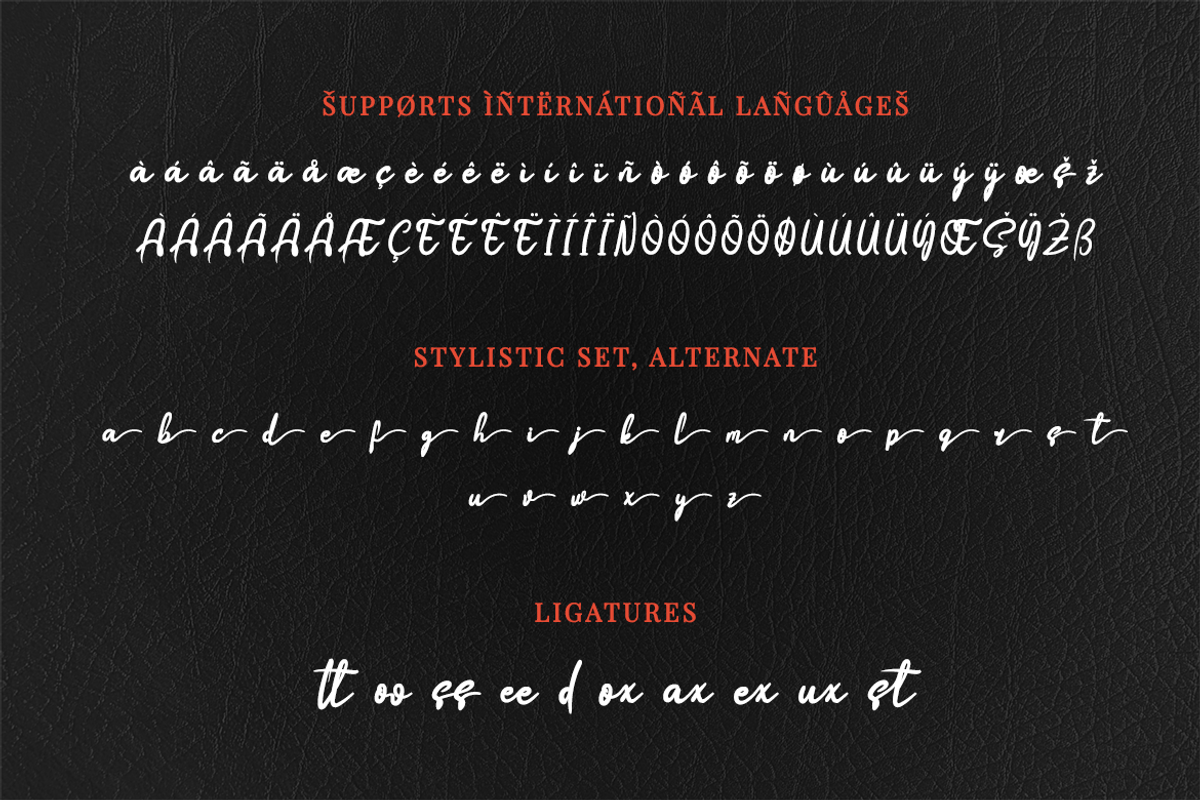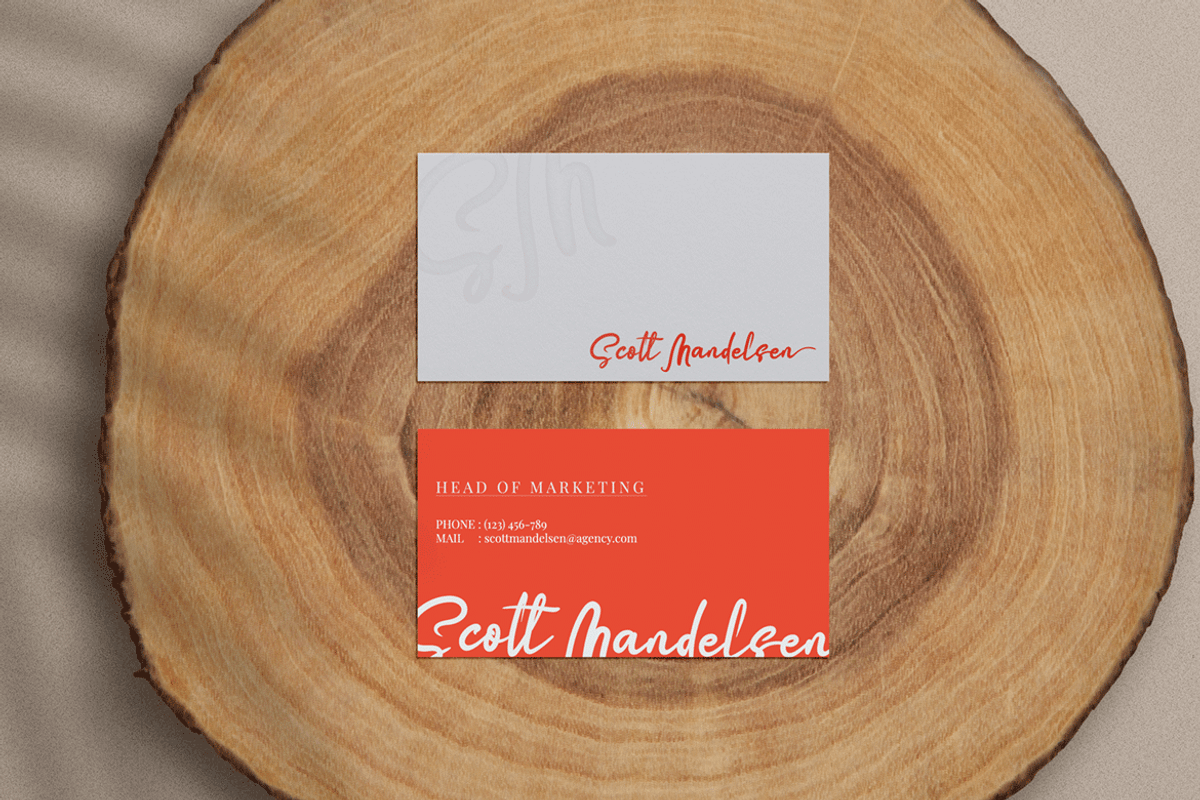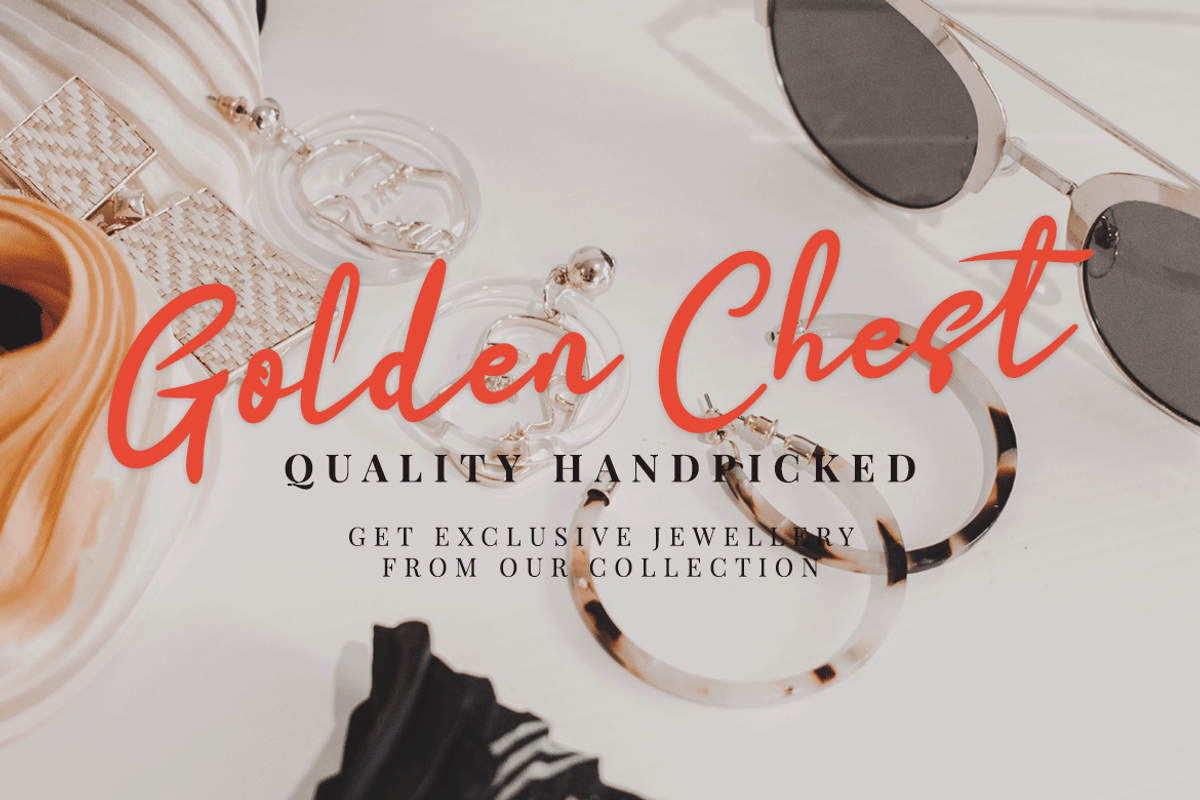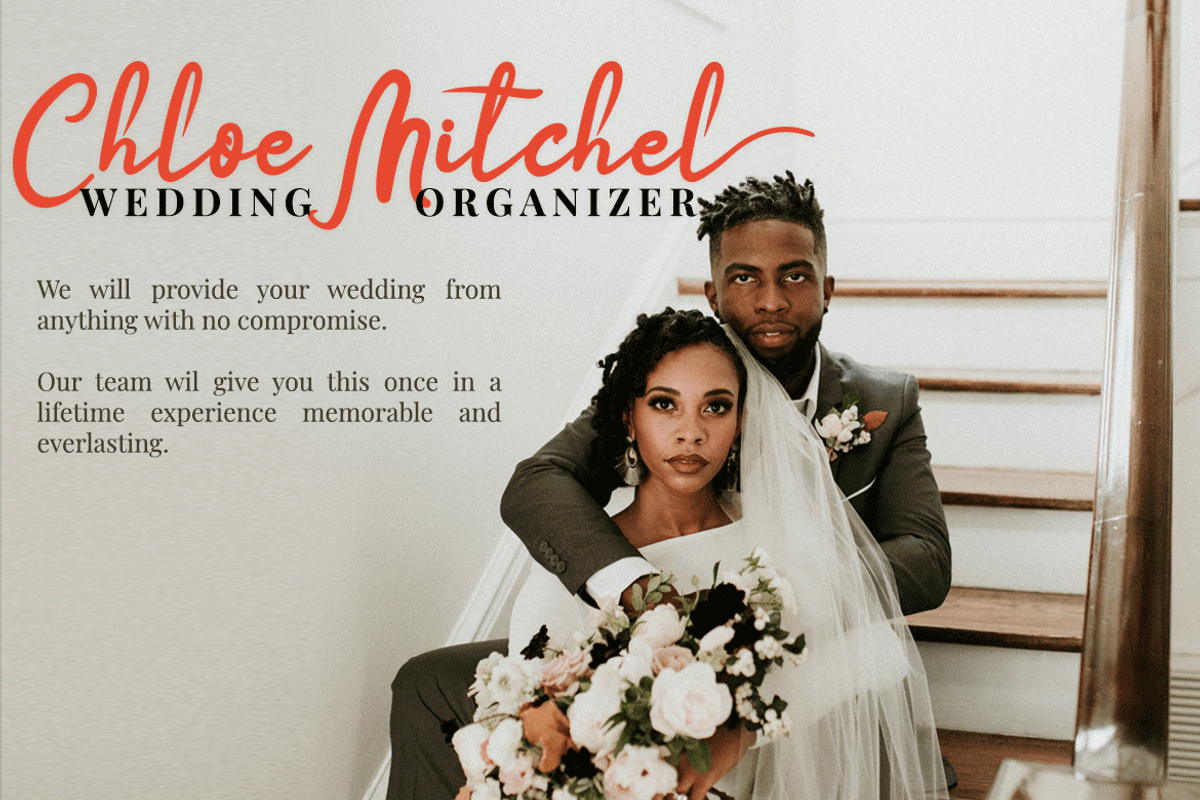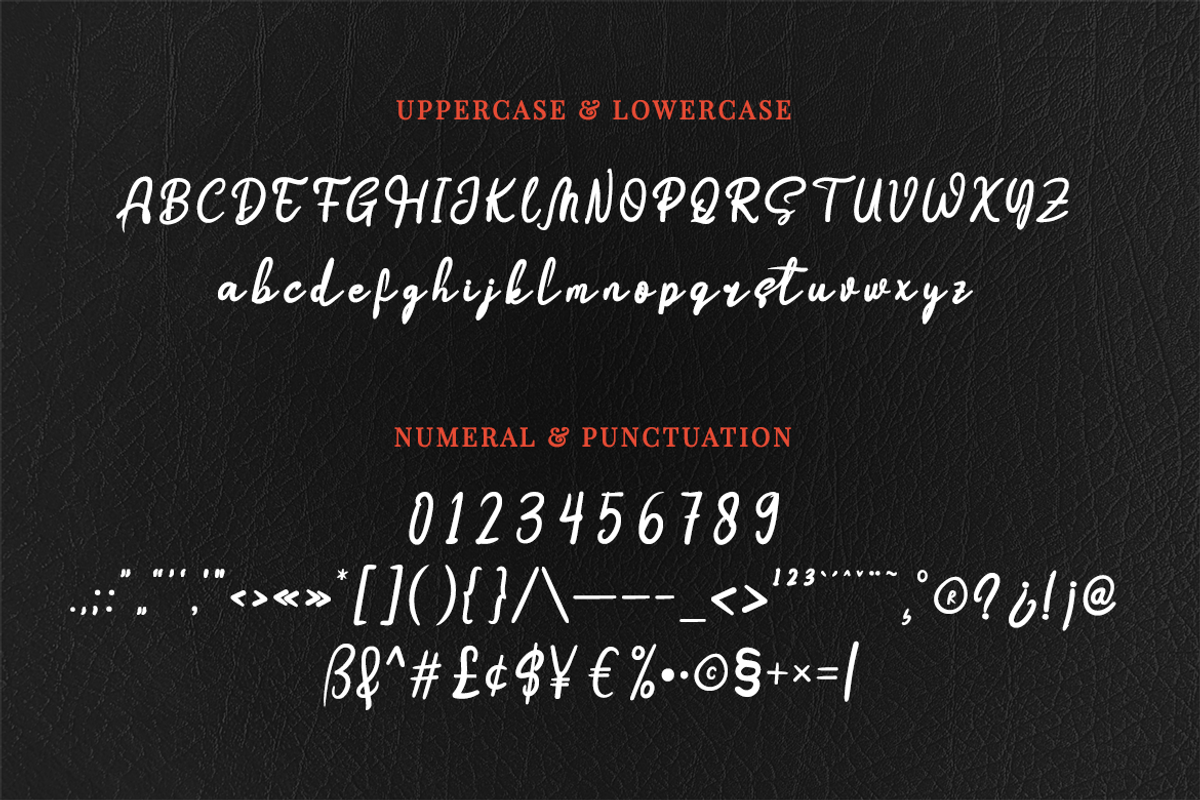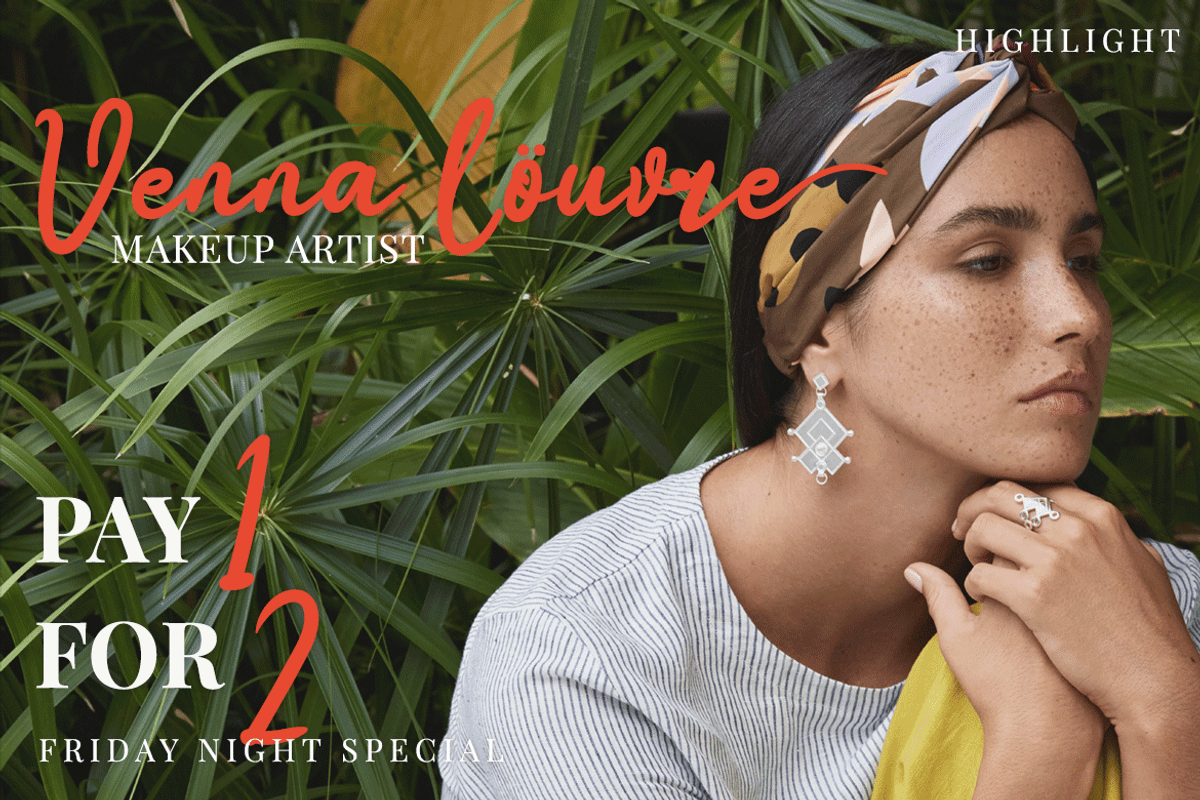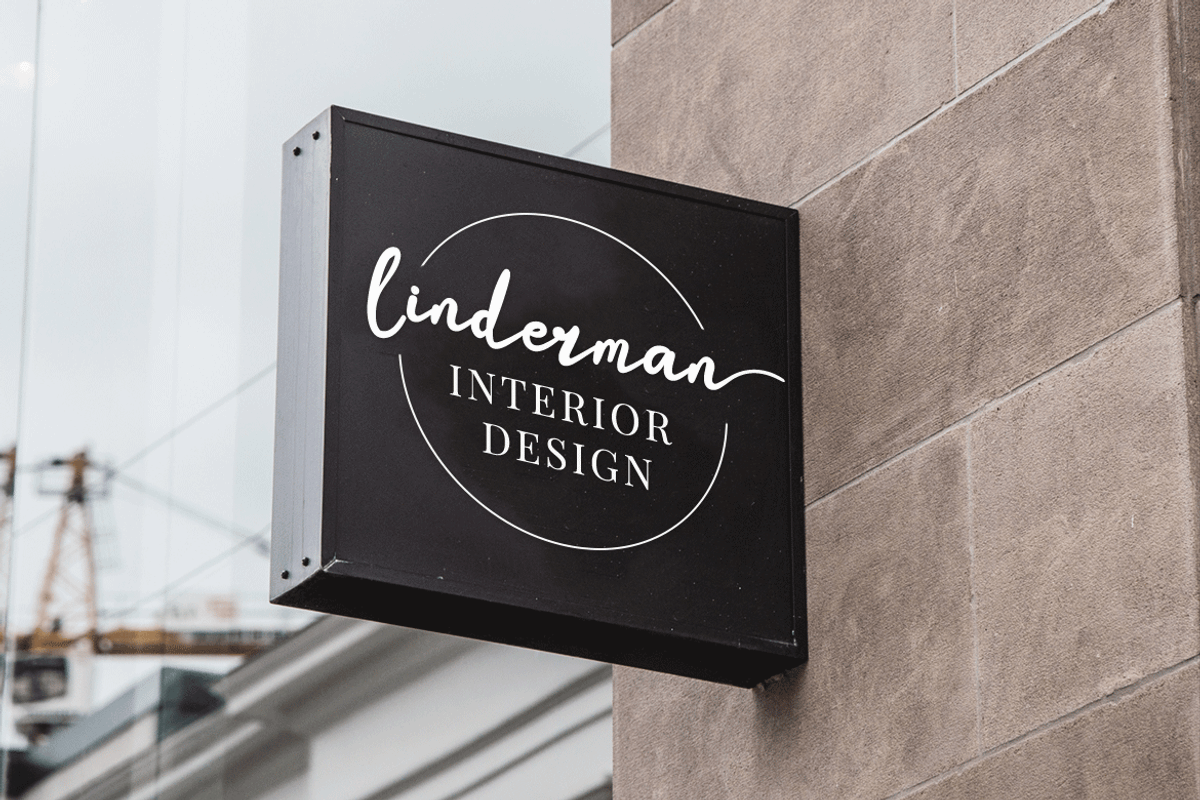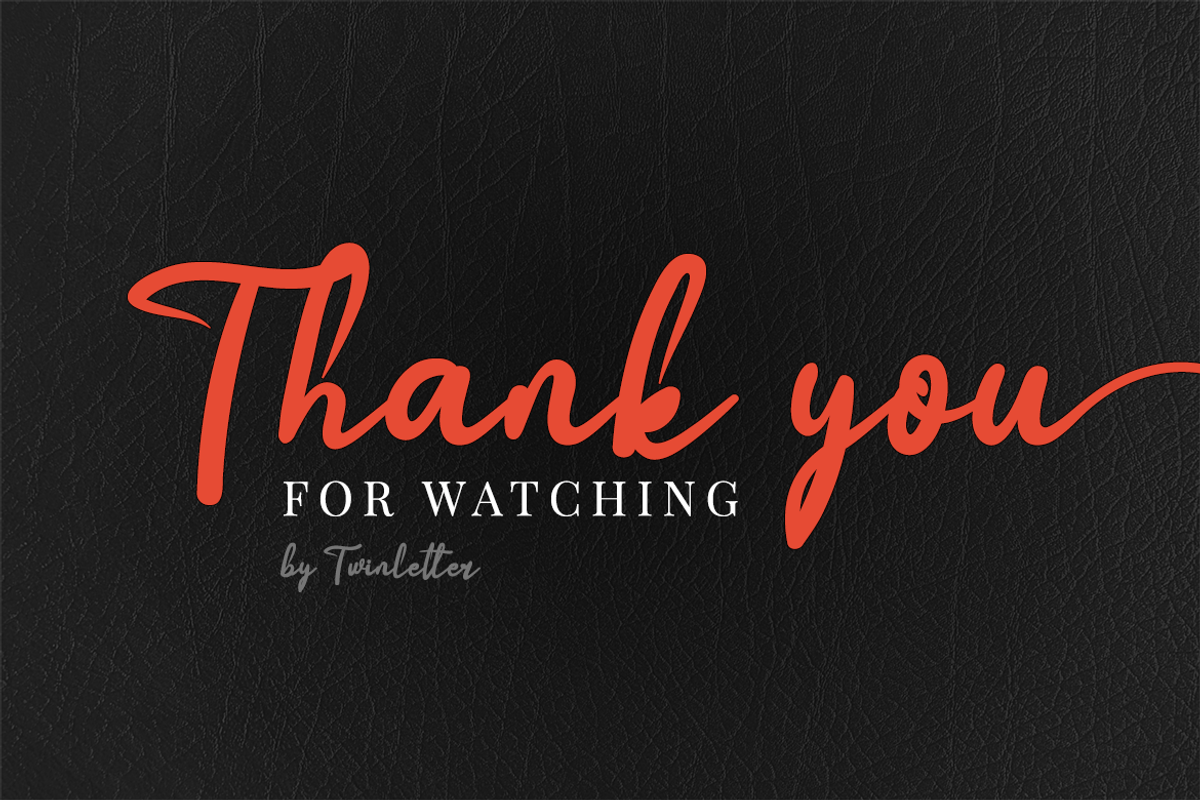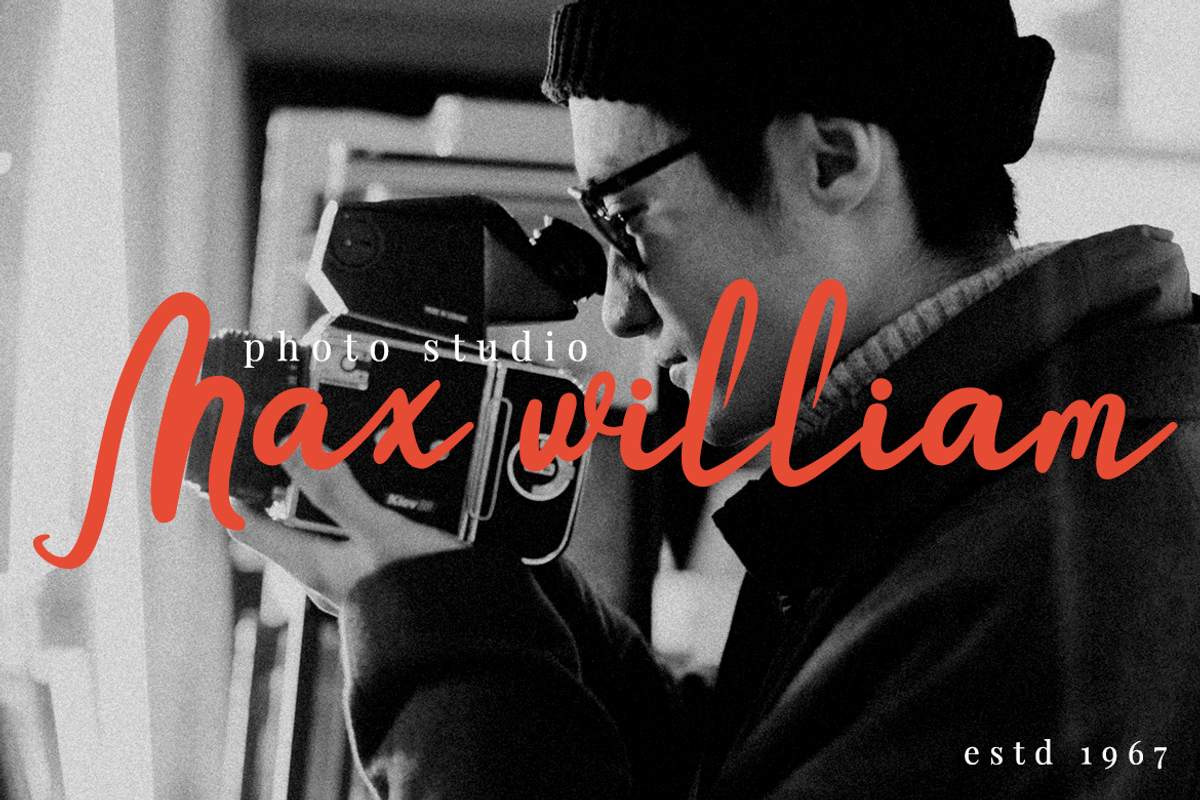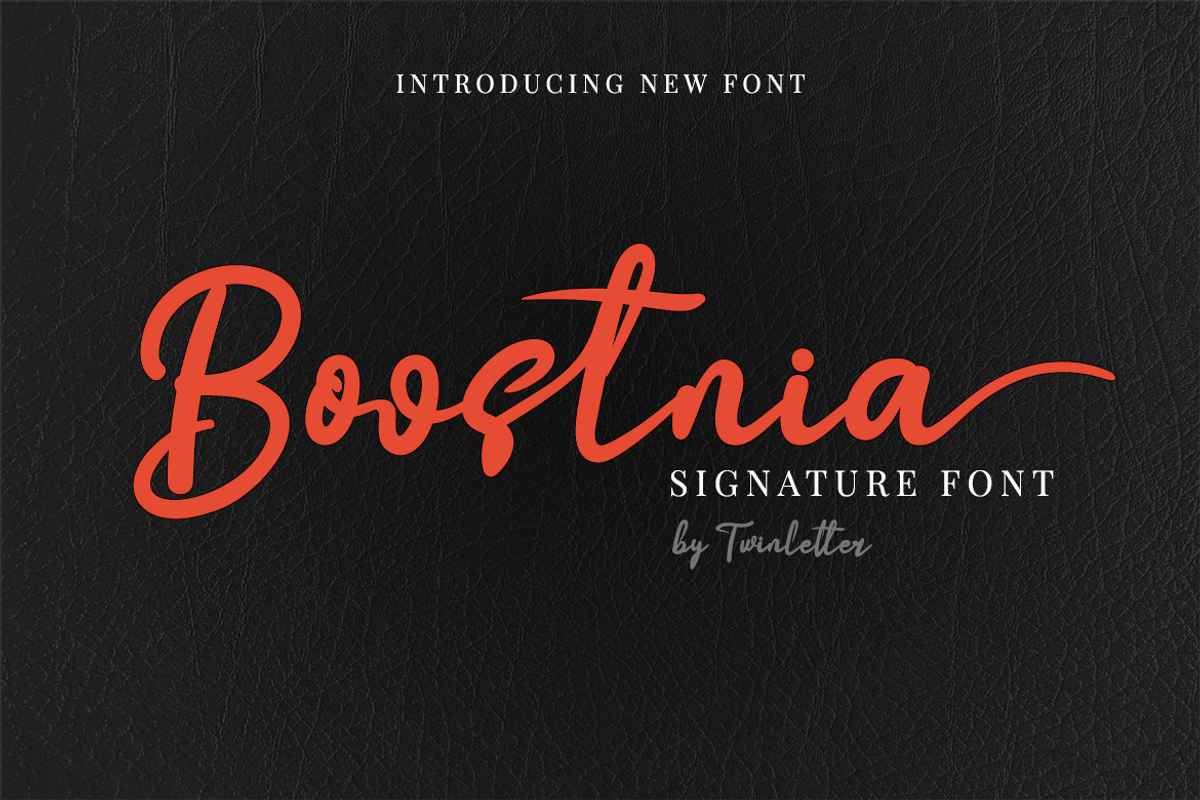
Boostnia
Introducing our newest font called Boostnia, a bold signature font written with abstract curves but still looking modern and elegant, This font in addition to having a charming and unique shape is also equipped with various options that support good results when you use it in your project.
This font is perfect for business cards, photography studios, autographs, interior designs, model names, coffee late, travel, weddings, cosmetics, jewelry, social media posts, product packaging, watermarks, special events, or anything else. Start using this font to add an authentic and heartfelt vibe to any design project.